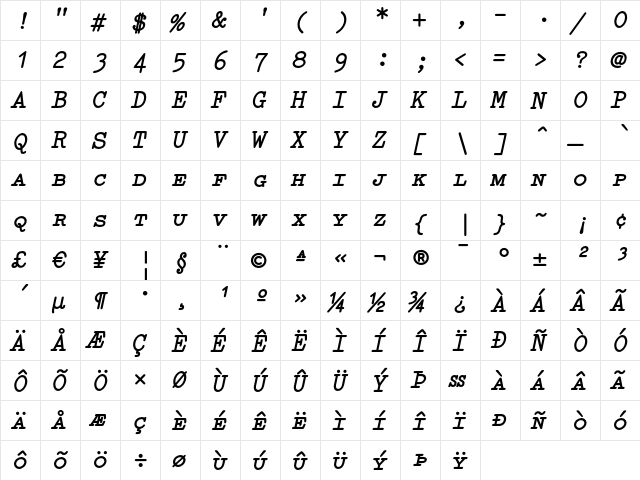
Elementa SC Bold Italic Font Preview
Elementa SC Bold Italic
Design Context for Elementa SC Typeface
Elementa SC takes a measured approach to typography — its balanced proportions and neutral character make it a reliable workhorse for both digital and print work. The dynamic lean of this cut emphasises speed and emphasis in any layout. Its bold stroke weight gives it real presence on the page.
Pro Tip: Use Elementa SC for emphasis, pull quotes, and subheadings where its slanted energy can add rhythm to the layout.